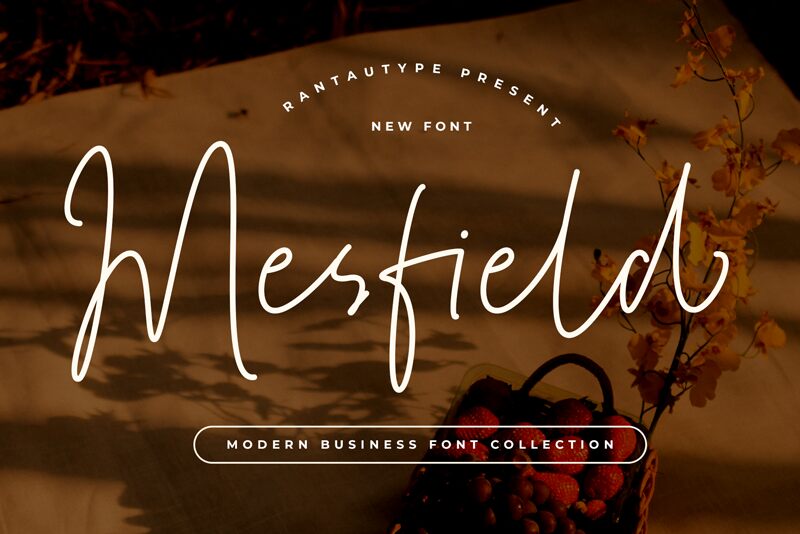
Mesfield font by RantautypeStudio is a modern and approachable handwritten font with a signature-style look. It features an informal and personal feel achieved through the typeface’s elegant and flowing design. This free font achieves expressiveness and authenticity through its unique ink stroke texture that successfully mimics real ink on paper.
In various artworks and projects, Mesfield fits contemporary applications in branding and invitations. Other possibilities where it can be used include magazine designs, book covers, packaging, social media, and business cards. Clients can confidently use it in websites, apps, title sequences, badges, logotypes, and posters.